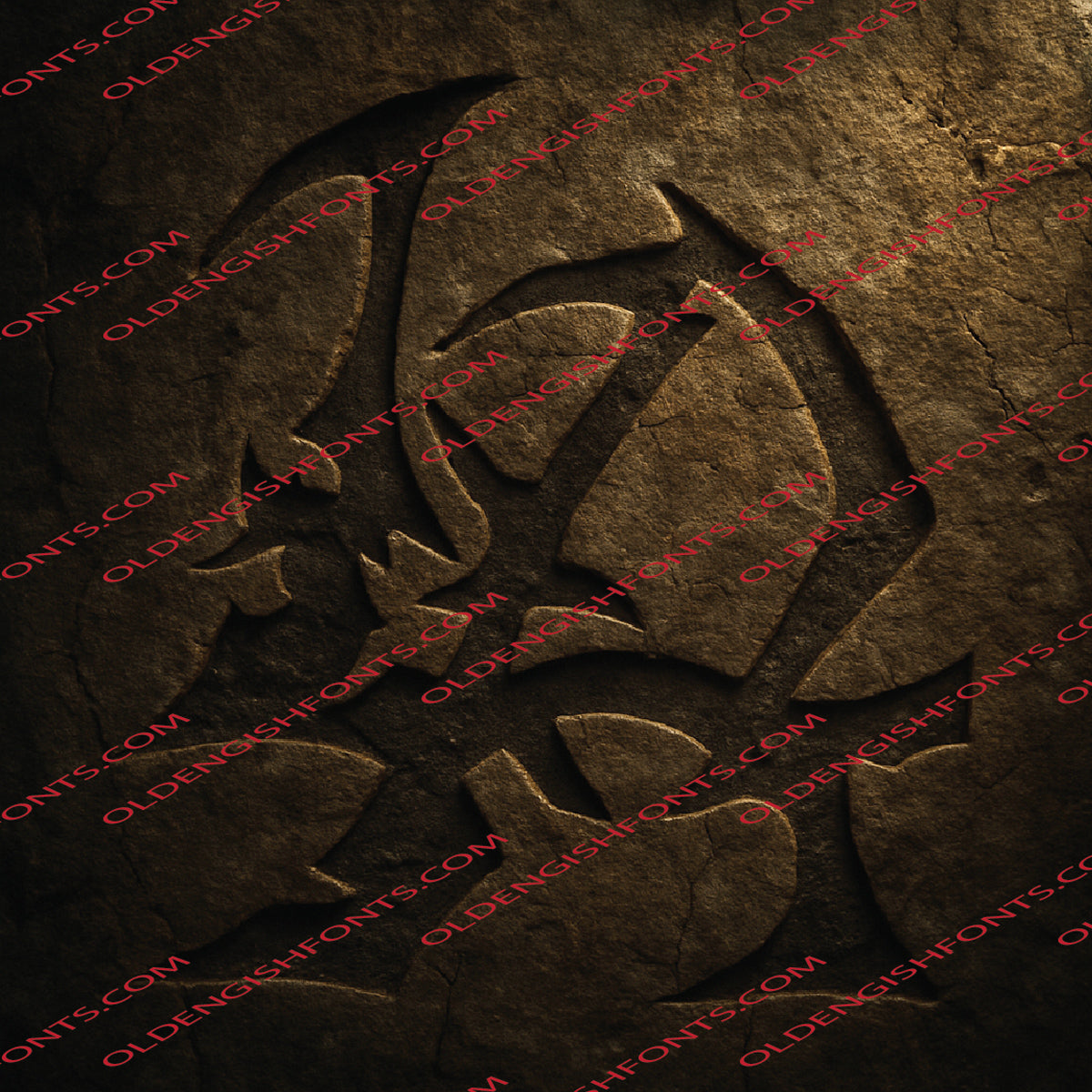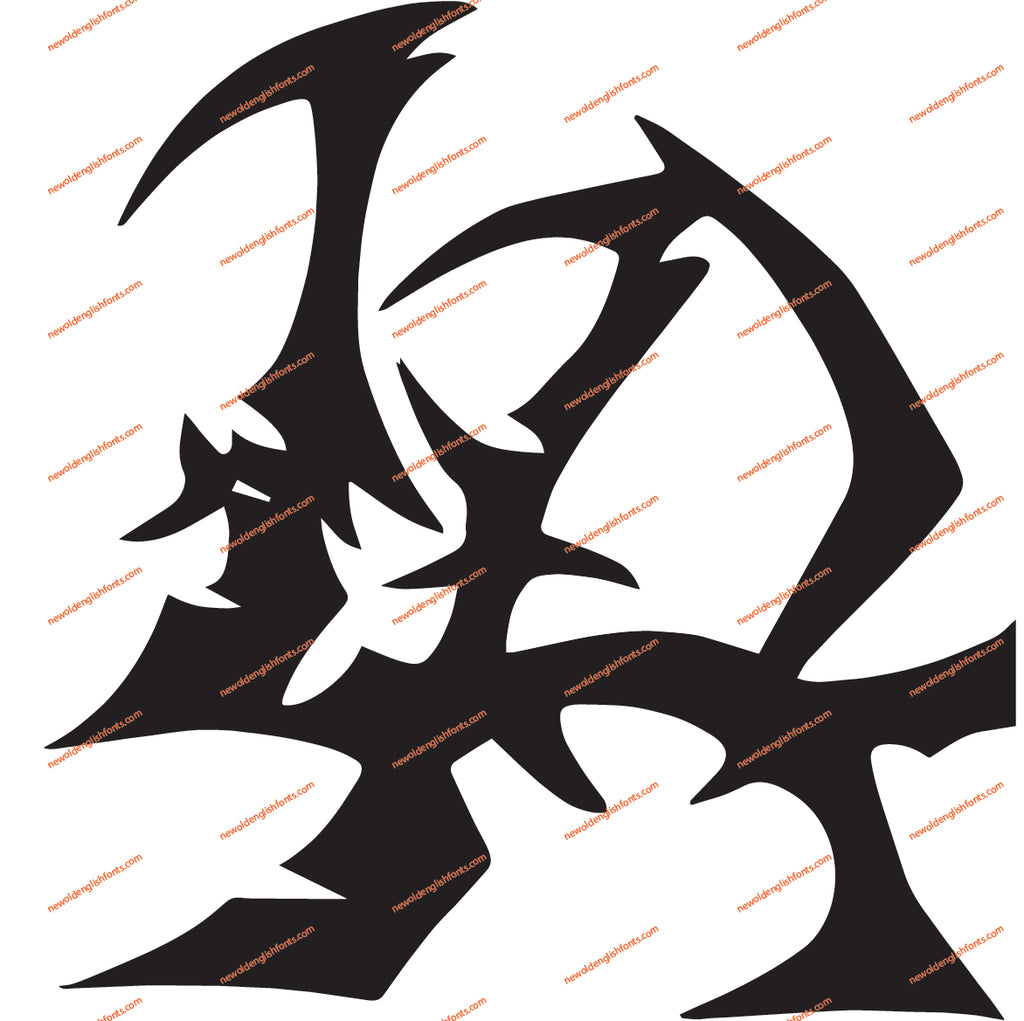
Barberic Stone is a bold display font inspired by the rough beauty of hand-chiseled rock and weathered stone carvings. Each letter is designed with jagged edges, cracked textures, and an organic, imperfect cut that gives it an authentic, stone-hewn feel.
Perfect for logos, posters, album covers, game titles, and tattoo-inspired artwork, Barberic Stone delivers a raw, primal energy that commands attention. Whether you’re creating fantasy-themed graphics, heavy metal merch, or bold branding, this font adds the weight, texture, and power your project needs.
Strong, gritty, and unapologetically rugged — Barberic Stone is more than a font; it’s a force carved in stone.